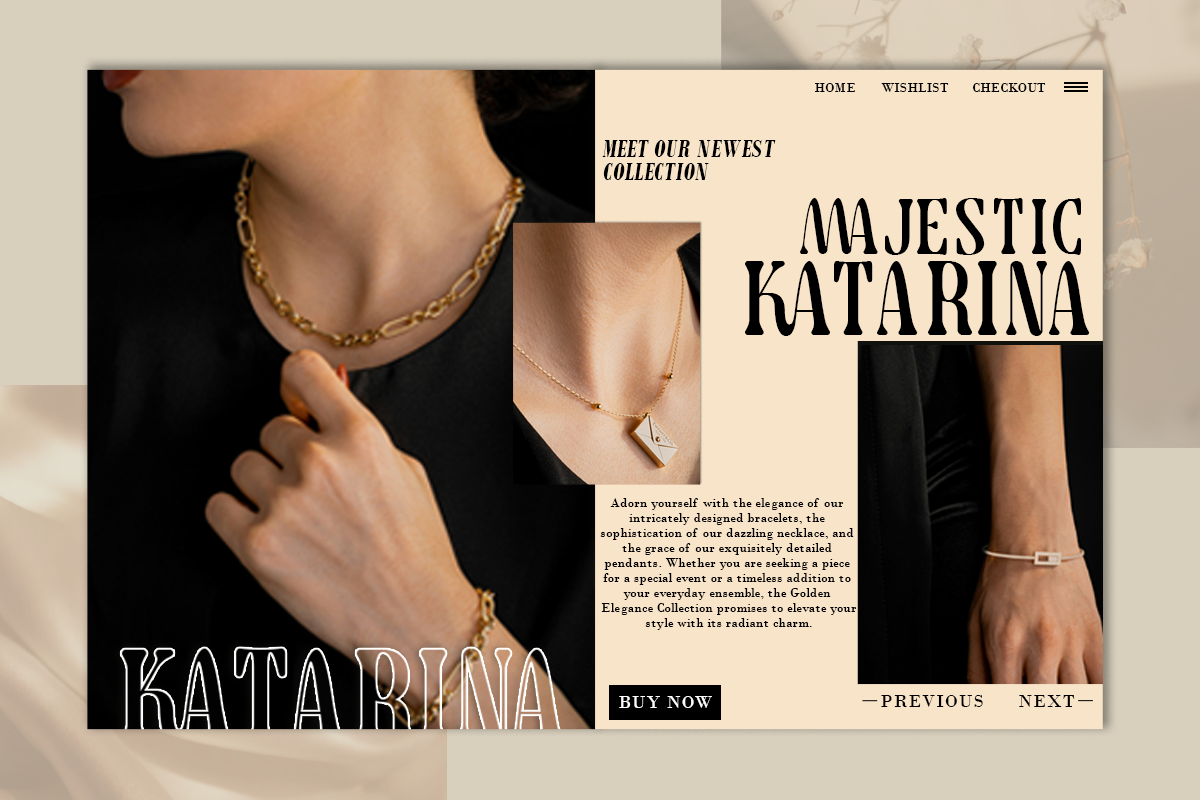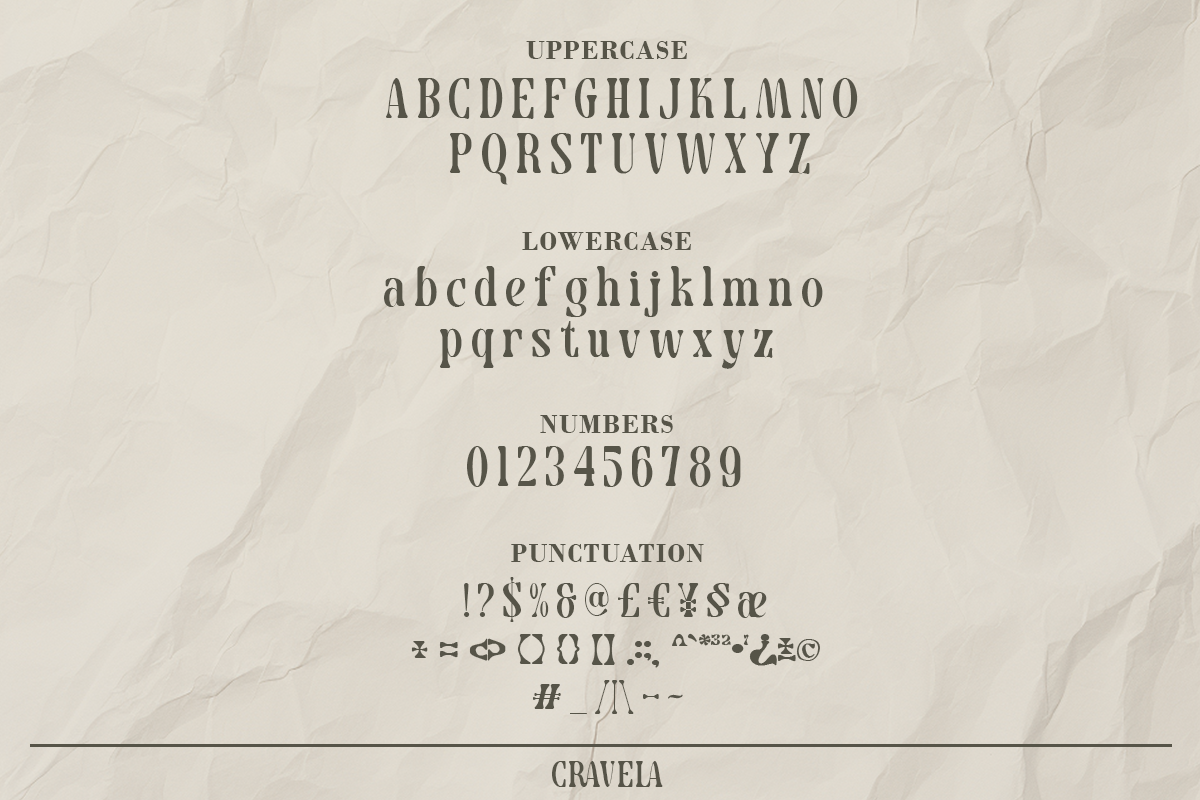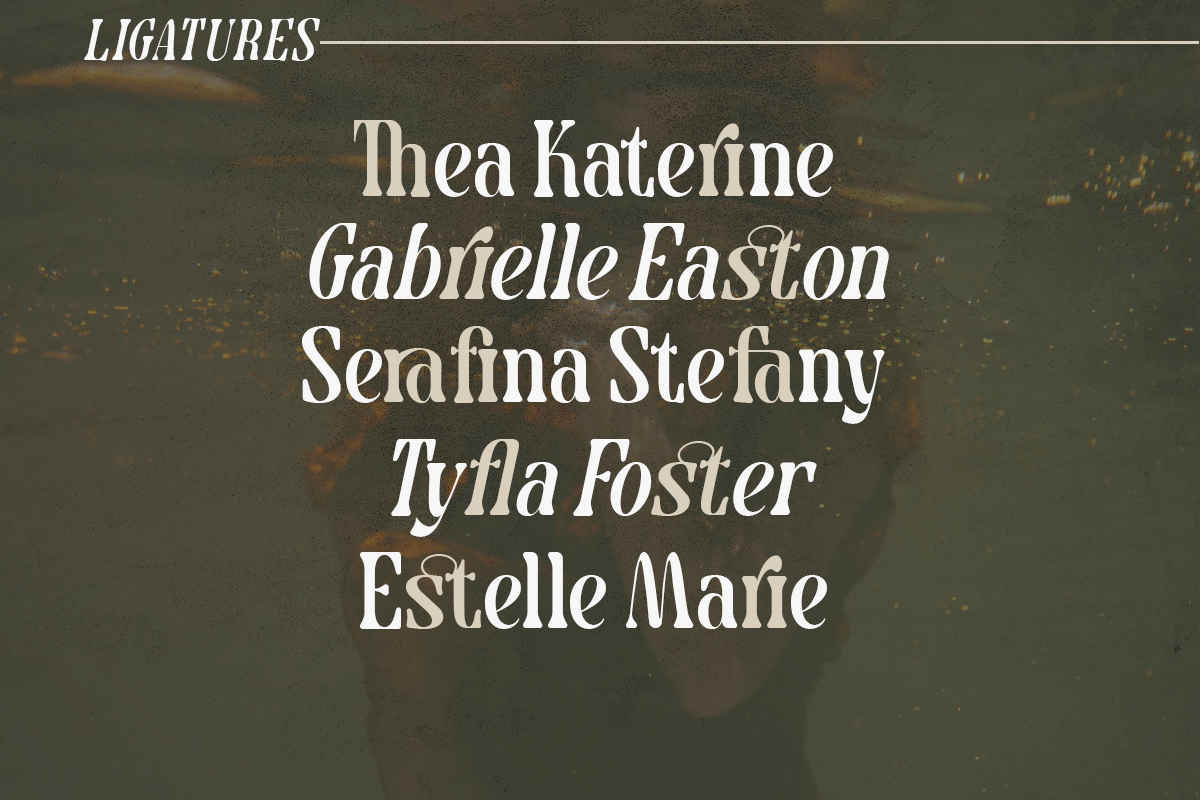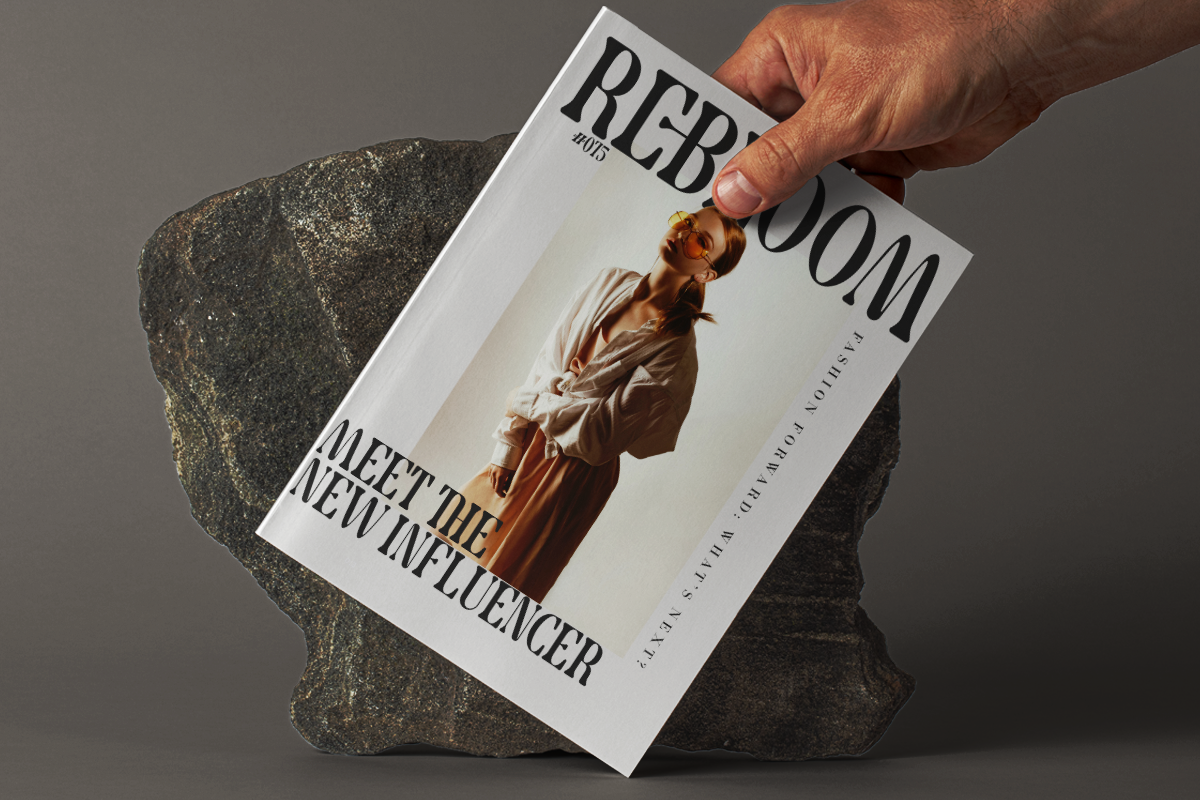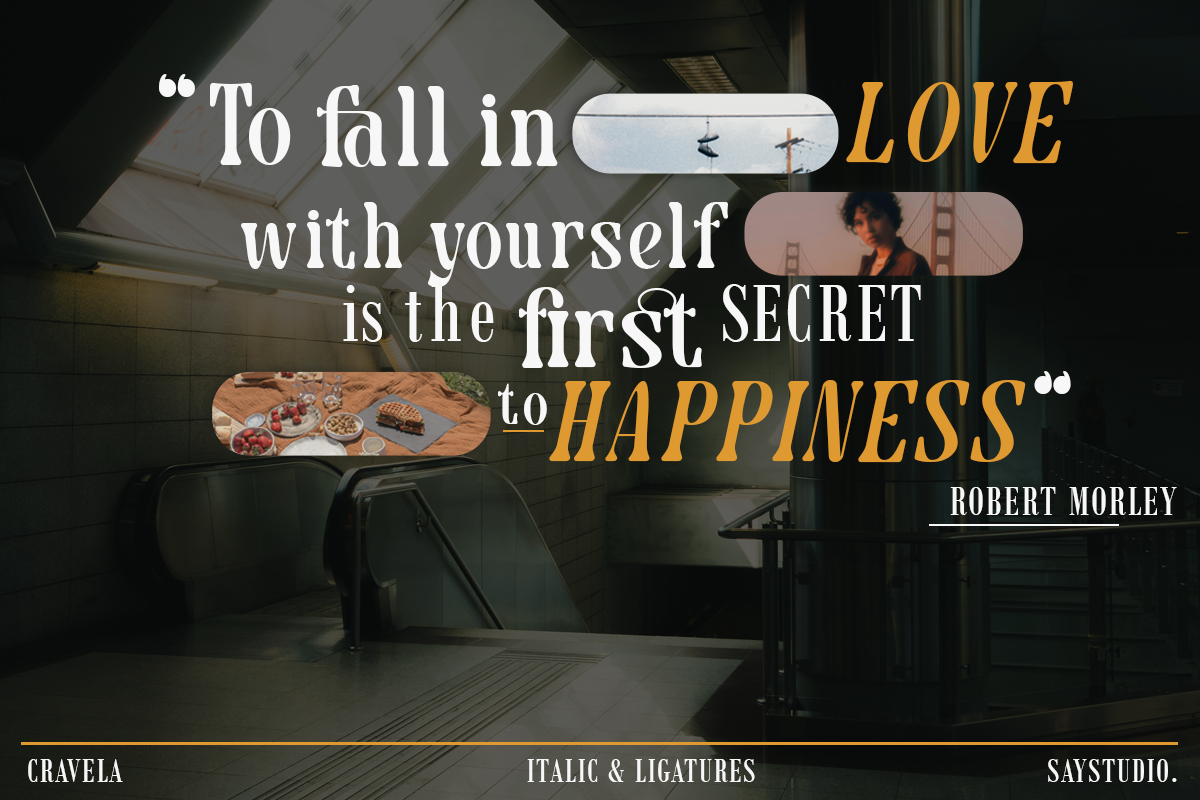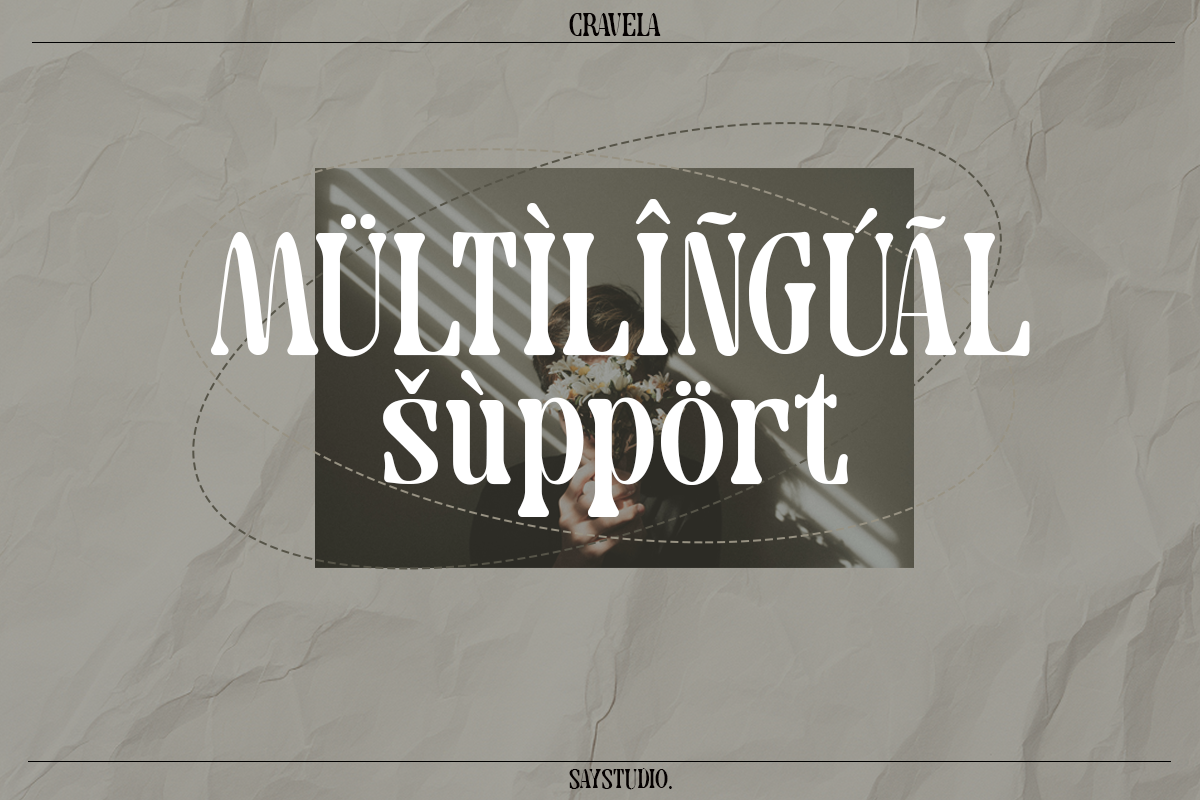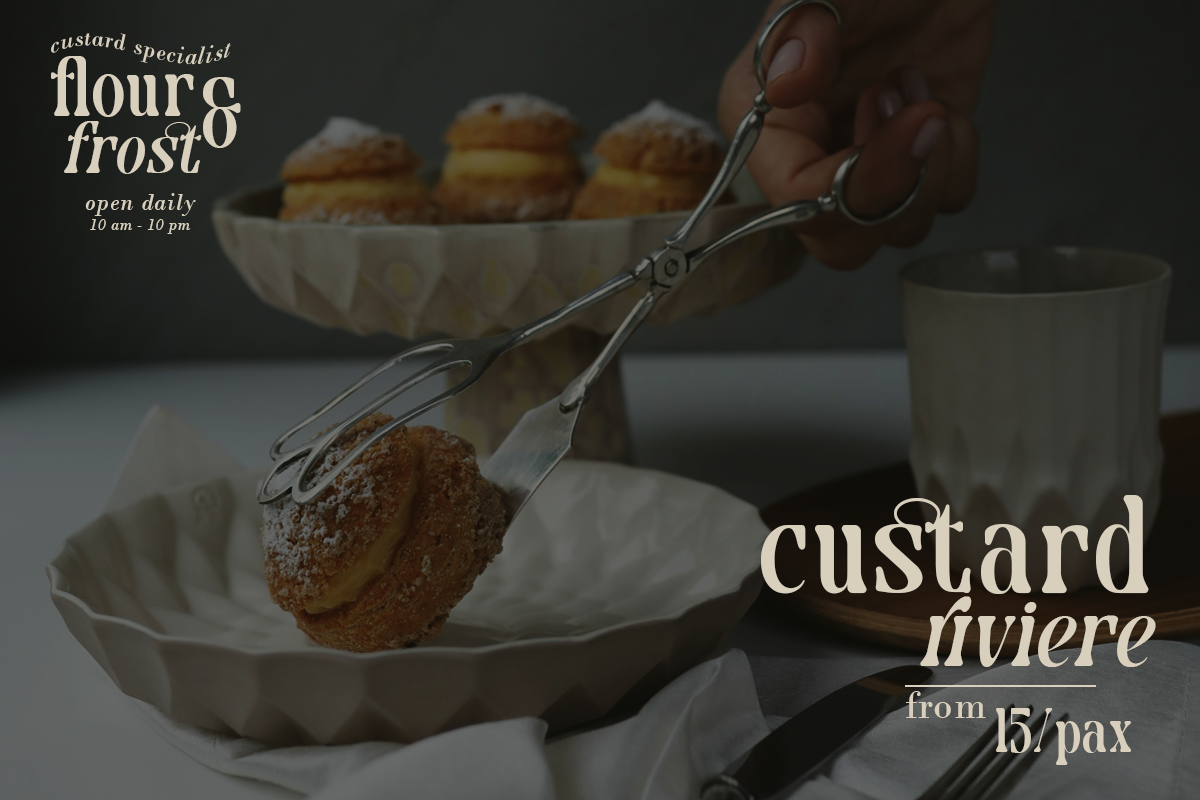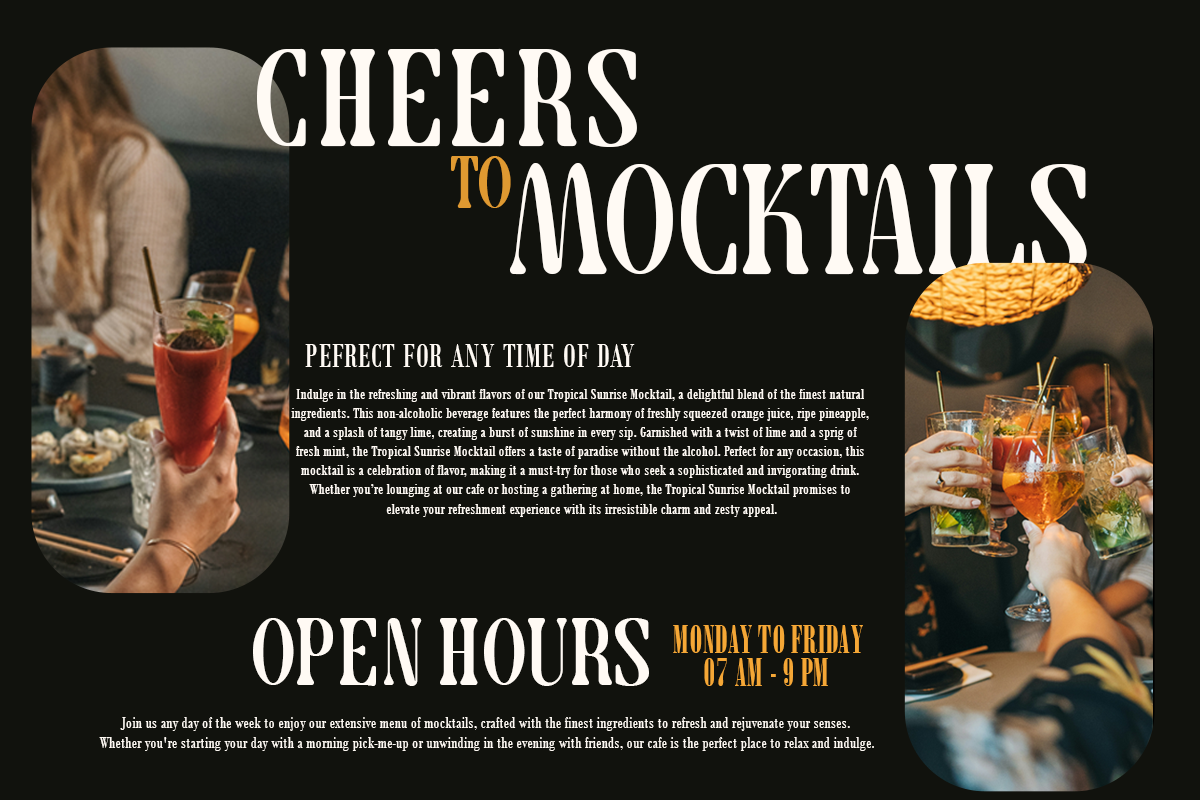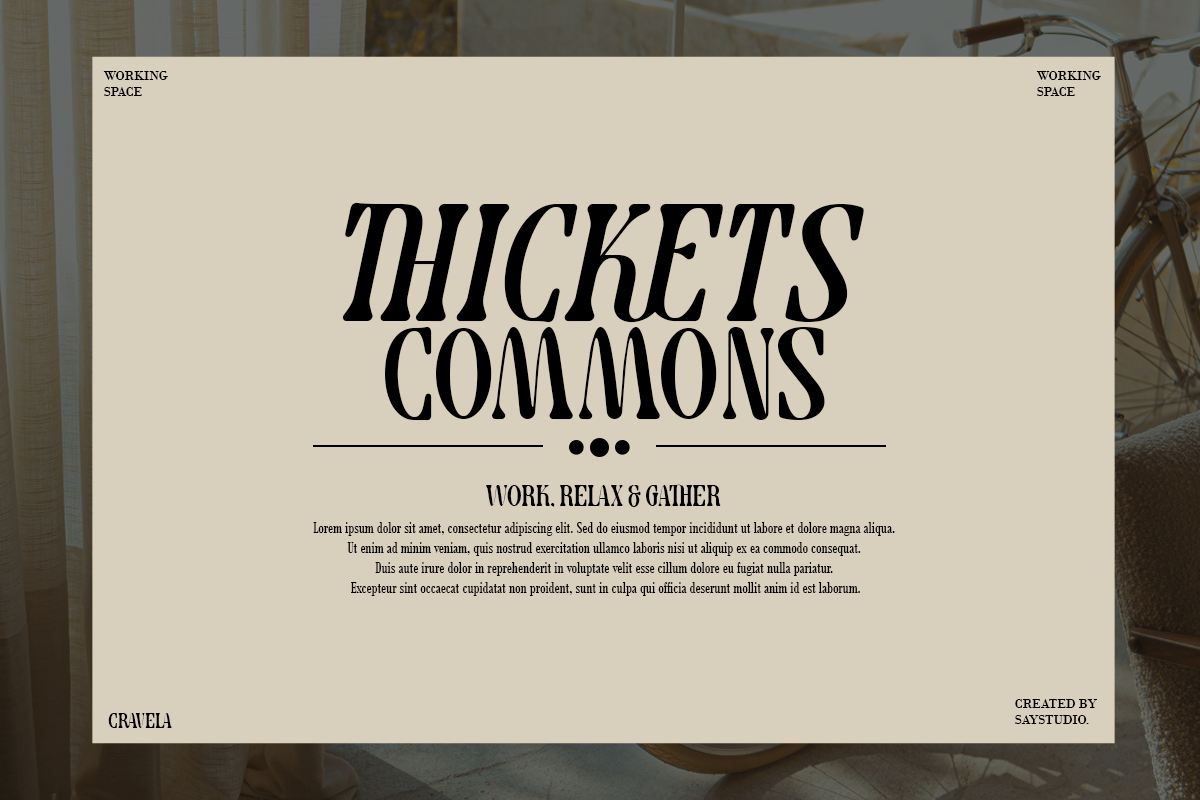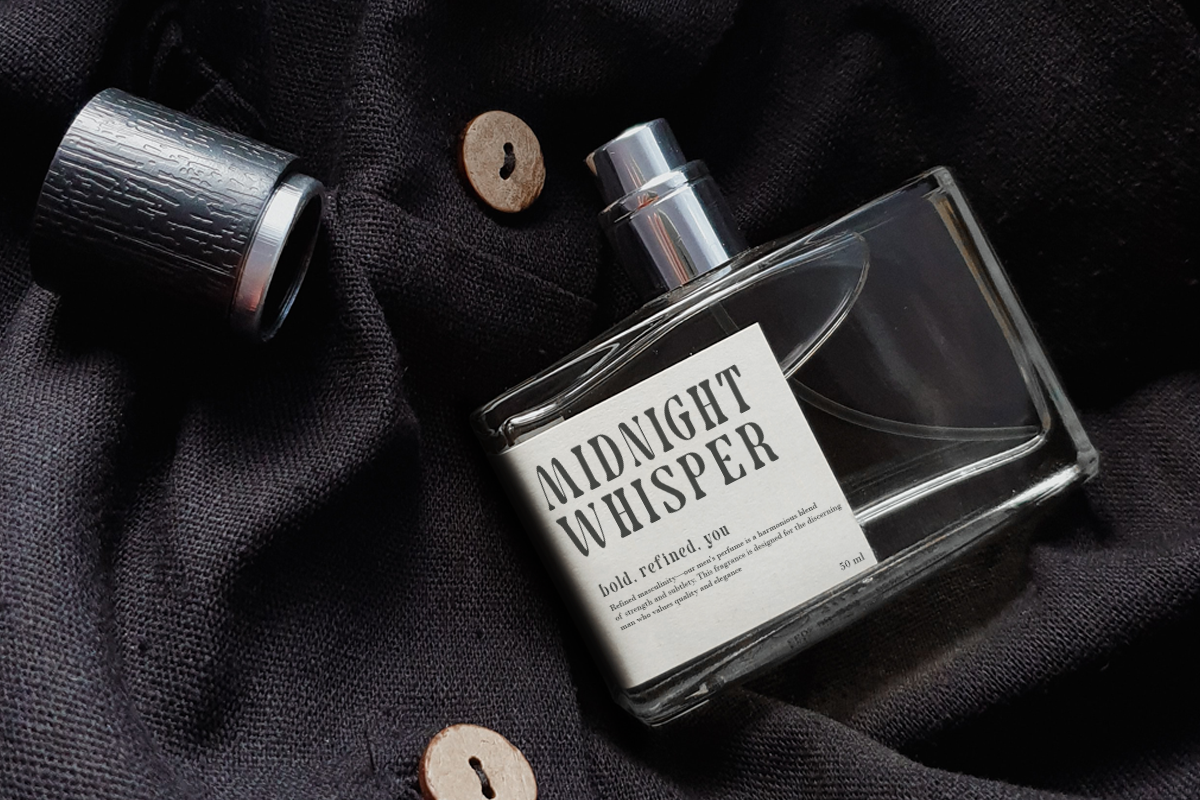
Cravela - Modern Serif
Cravela is the perfect cozy modern serif font. Fantastic choice for your next graphic design project, and can be scaled to a variety of sizes. Comes with two variations: Regular and Italic. Cravela is timeless and can not be missed in your font collection. It is the perfect branding font and will help you to easily create logos, wedding designs, and all other commercial projects. Cravela have optional ligatures of class & high fashion. It's a combination of luxury, classy and modern all rolled into one. Start designing straight away.